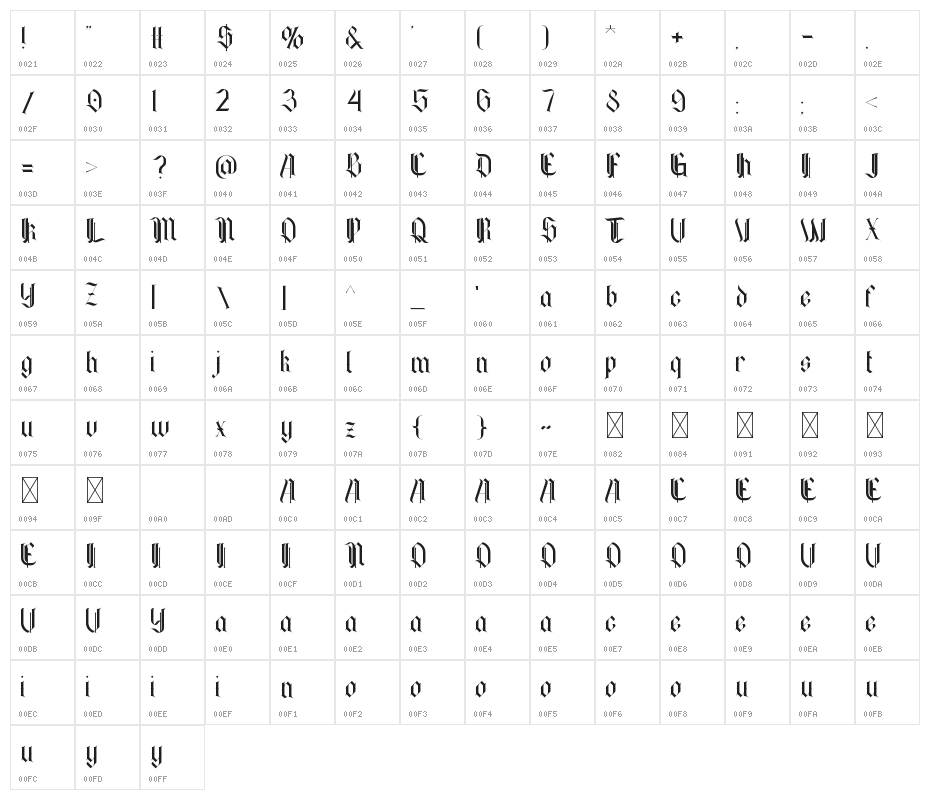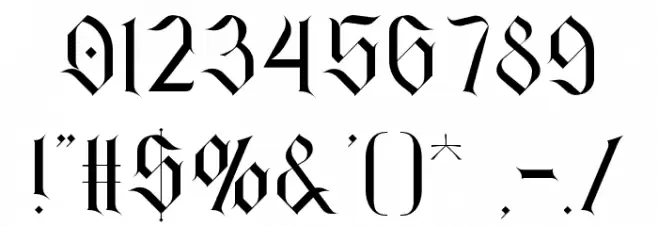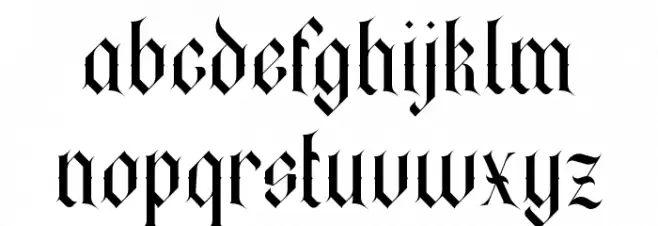
ISTANA Font
✎ Gothic
| Catégories | Gothic |
| Style général | Gothic, Medieval, Dramatic |
| Cas d'utilisation | Headlines, Logos, Decorative text |
| Projets proposés | Suitable for historical documents, gothic-themed designs, book covers, posters, and branding that requires a dramatic or medieval touch. |